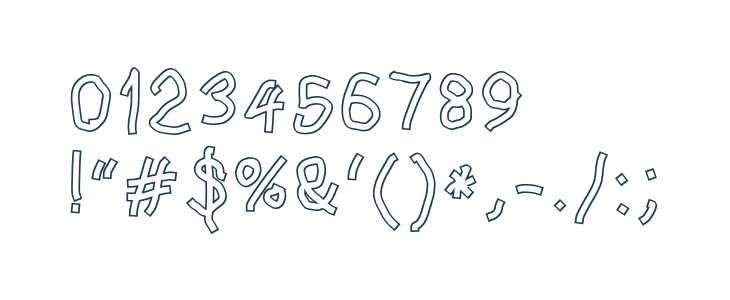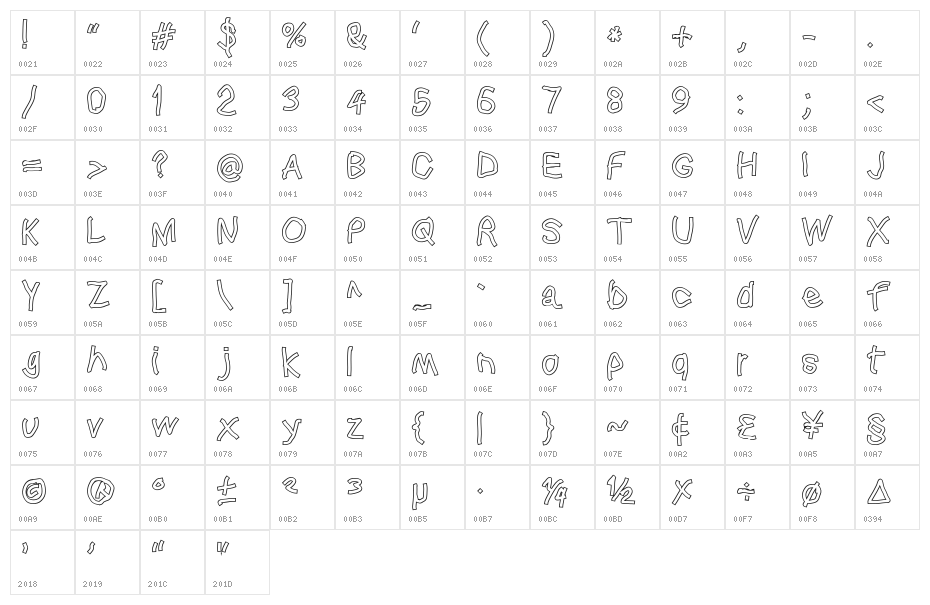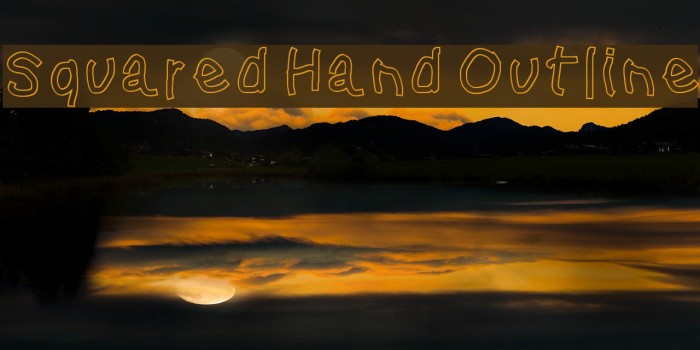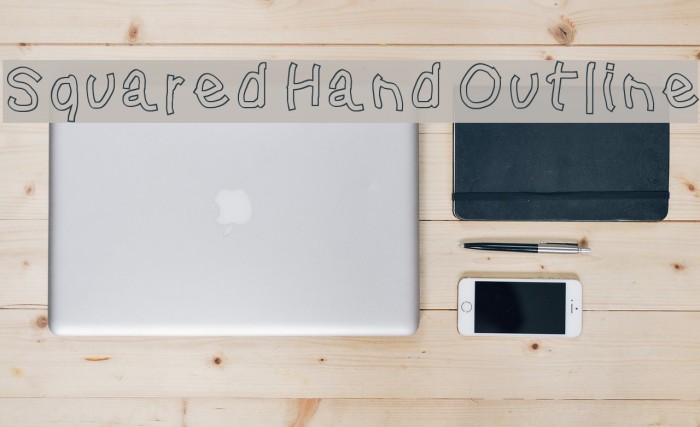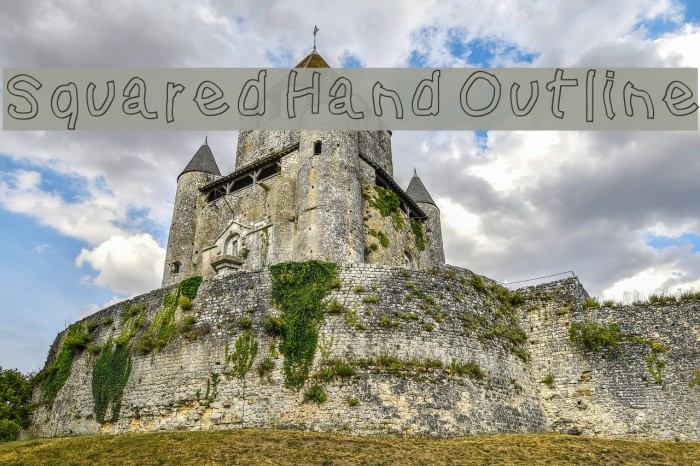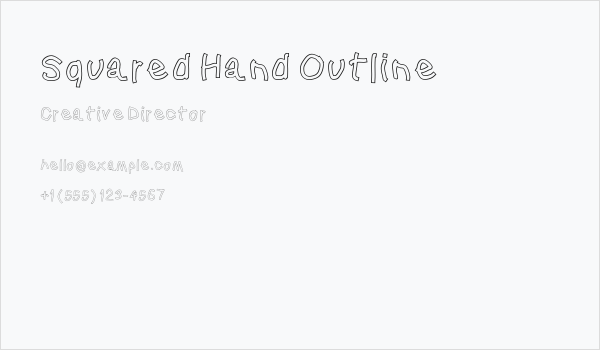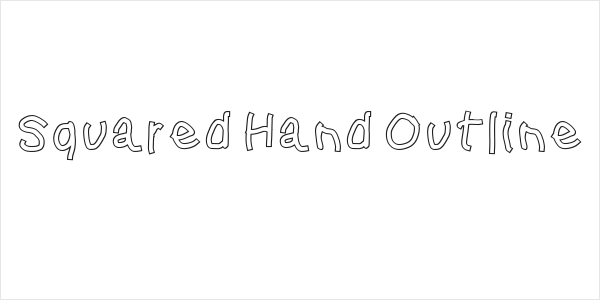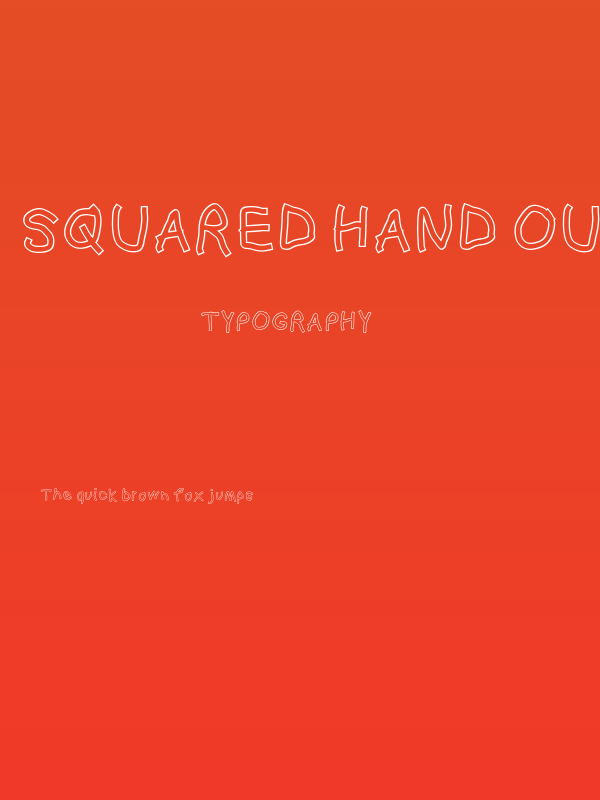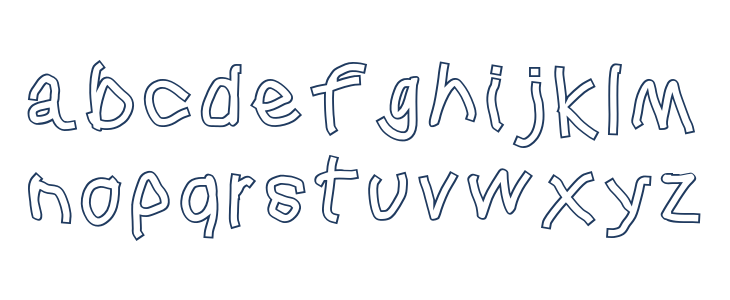
Squared Hand Outline Font
| 全体的なスタイル | Whimsical |
| 用途 | Logos, Posters, Invitations |
| おすすめプロジェクト | Ideal for children's book covers, playful branding, creative posters, and informal invitations. |